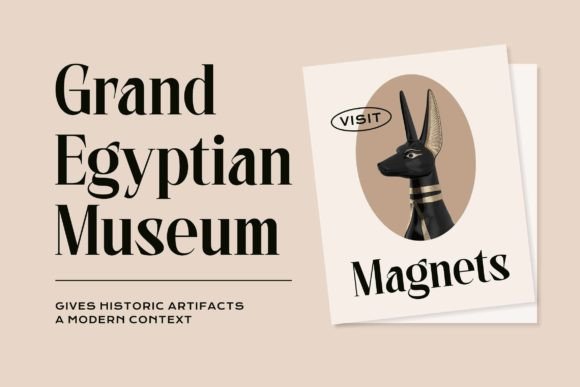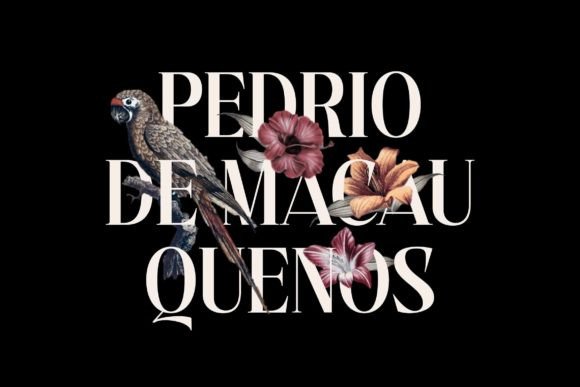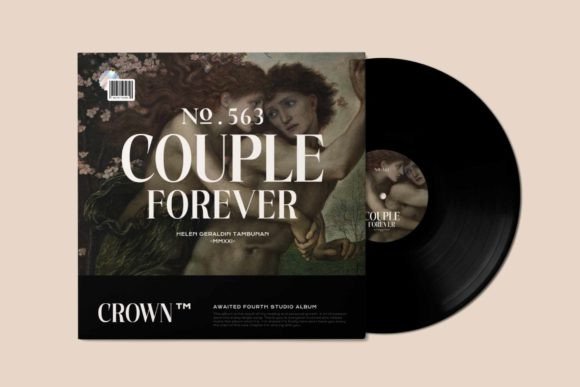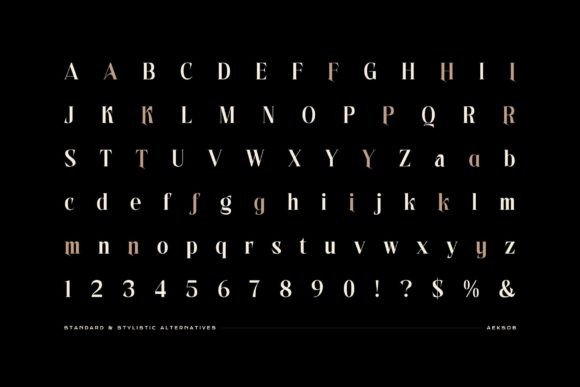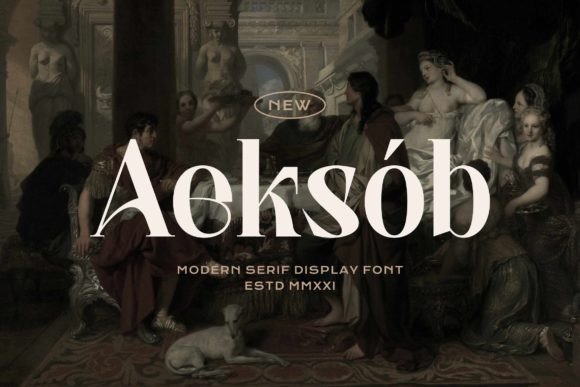
Aeksob Font: Elevate Your Design with Modern-Style Serif Elegance
In the realm of typography, the right font can make all the difference in transforming a design from ordinary to extraordinary. For designers and crafters seeking a modern-style serif font that exudes elegance and sophistication, Aeksob Serif Display is an exceptional choice. This versatile font is designed to help you create stunning logos, quotes, posts, blog posts, branding projects, magazine imagery, wedding invitations, and a myriad of other design projects that demand a touch of refinement.
Unleash Creativity with Aeksob Serif Display
Aeksob Serif Display stands out with its contemporary serif design, meticulously crafted to cater to the needs of modern designers. Its clean lines, elegant curves, and thoughtfully designed serifs make it an ideal font for projects that require a blend of modernity and tradition. Whether you’re working on a luxury brand’s logo, a high-end fashion magazine, or a sophisticated wedding invitation, Aeksob Serif Display brings a level of class and sophistication that’s hard to match.
PUA Encoding for Easy Access to Glyphs and Ligatures
One of the key features that set Aeksob Serif Display apart is its PUA (Private Use Area) encoding. This means that accessing the font’s extensive range of glyphs and ligatures is remarkably straightforward. PUA encoding allows designers to easily access and use the additional characters and features of the font, enabling the creation of more complex and visually appealing designs without the need for complicated workarounds or character mapping.
The versatility of Aeksob Serif Display is one of its most compelling attributes. This font is not just limited to digital designs; it’s also perfectly suited for print projects. Here are a few ways you can utilize Aeksob Serif Display:
- Logos and Branding: Create memorable and impactful logos that stand out. The modern serifs and elegant design make it perfect for brands looking to convey sophistication and luxury.
- Quotes and Posts: Enhance your social media posts and quotes with a touch of elegance. Aeksob Serif Display ensures your text stands out and engages your audience.
- Elevate your blog’s typography with Aeksob Serif Display. Its readability and style make it an excellent choice for headings and body text.
- Magazine Imagery: Add a professional touch to your magazine articles, covers, and advertisements with this stylish font.
- Wedding Invitations: Make your wedding invitations truly special with a font that exudes elegance and romance.
Alternatives and Ligatures for Endless Design Possibilities
Aeksob Serif Display also comes with a range of alternatives and ligatures, providing designers with a wealth of creative options. These features allow for the customization of your text, enabling you to create unique designs that reflect your brand’s personality or the specific theme of your project. The inclusion of ligatures adds a touch of sophistication and artistry to your designs, setting them apart from more conventional typography.
Aeksob Serif Display is more than just a font; it’s a design tool that offers endless possibilities for creativity and expression. Its modern-style serif design, combined with PUA encoding for easy access to glyphs and ligatures, makes it an invaluable asset for designers and crafters. Whether you’re working on a branding project, a magazine, a wedding invitation, or any other design endeavor, Aeksob Serif Display is poised to elevate your work to new heights of elegance and sophistication.
Embrace the power of typography with Aeksob Serif Display and discover how this versatile, elegant font can transform your designs into stunning works of art.